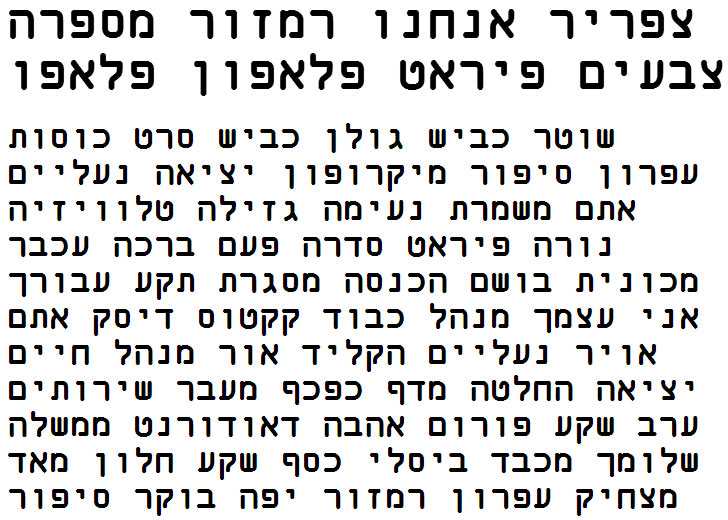
✓ "Courier New", which is distributed with Windows, is used mainly for writing computer code, because of its monospaced characters. In the Hebrew version of Courier, font creators based their shapes on "Miriam", an old Hebrew font, which is also distributed with Windows, and is used in Israel Railway's signage. I tried to see what happens when I strip the many "serifs" off the letters - will it worsen it? Will it better it? Apart from making minimal proportional adjustments to the ltters, the font is very similar to "Courier New". You be the judges. "Shaliah" is a courier in Hebrew.
Shaliah Sans Black Hebrew Font
โœ“ "Courier New", ื”ืžื•ืคืฅ ืขื Windows, ืžืฉืžืฉ ื‘ืขื™ืงืจ ืœื›ืชื™ื‘ืช ืงื•ื“ ืžื—ืฉื‘, ื‘ื’ืœืœ ื”ืชื•ื•ื™ื ื”ื—ื“-ืจื•ื•ื—ื™ื ืฉืœื•. ื‘ื’ืจืกื” ื”ืขื‘ืจื™ืช ืฉืœ Courier ื‘ื™ืกืกื• ื™ื•ืฆืจื™ ื”ืคื•ื ื˜ื™ื ืืช ืฆื•ืจื•ืชื™ื”ื ืขืœ "ืžืจื™ื", ื’ื•ืคืŸ ืขื‘ืจื™ ื™ืฉืŸ, ื”ืžื•ืคืฅ ื’ื ืขื ื—ืœื•ื ื•ืช, ื•ืžืฉืžืฉ ื‘ืฉื™ืœื•ื˜ ืฉืœ ืจื›ื‘ืช ื™ืฉืจืืœ. ื ื™ืกื™ืชื™ ืœืจืื•ืช ืžื” ืงื•ืจื” ื›ืฉืื ื™ ืžืคืฉื™ื˜ ืืช ื”"ืกืจื™ืคื™ื" ื”ืจื‘ื™ื ืžื”ืื•ืชื™ื•ืช - ื”ืื ื–ื” ื™ื—ืžื™ืจ? ื”ืื ื–ื” ื™ื”ื™ื” ื˜ื•ื‘ ื™ื•ืชืจ? ืžืœื‘ื“ ื‘ื™ืฆื•ืข ื”ืชืืžื•ืช ืคืจื•ืคื•ืจืฆื™ื•ื ืœื™ื•ืช ืžื™ื ื™ืžืœื™ื•ืช ืœ-ltters, ื”ื’ื•ืคืŸ ื“ื•ืžื” ืžืื•ื“ ืœ"Courier New". ืืชื ืชื”ื™ื• ื”ืฉื•ืคื˜ื™ื. "ืฉืœื™ื—" ื”ื•ื ืฉืœื™ื— ื‘ืขื‘ืจื™ืช.